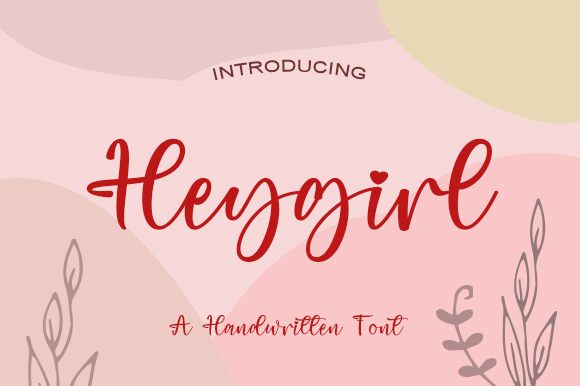
Heygirl is a beautiful handwritten font designed by Wahyu Setiyawam. Its light weight makes it perfect for creating eye-catching logos, wedding invitations, social media posts, and more. With its versatile style and modern feel, Heygirl can be used in any project you can imagine!